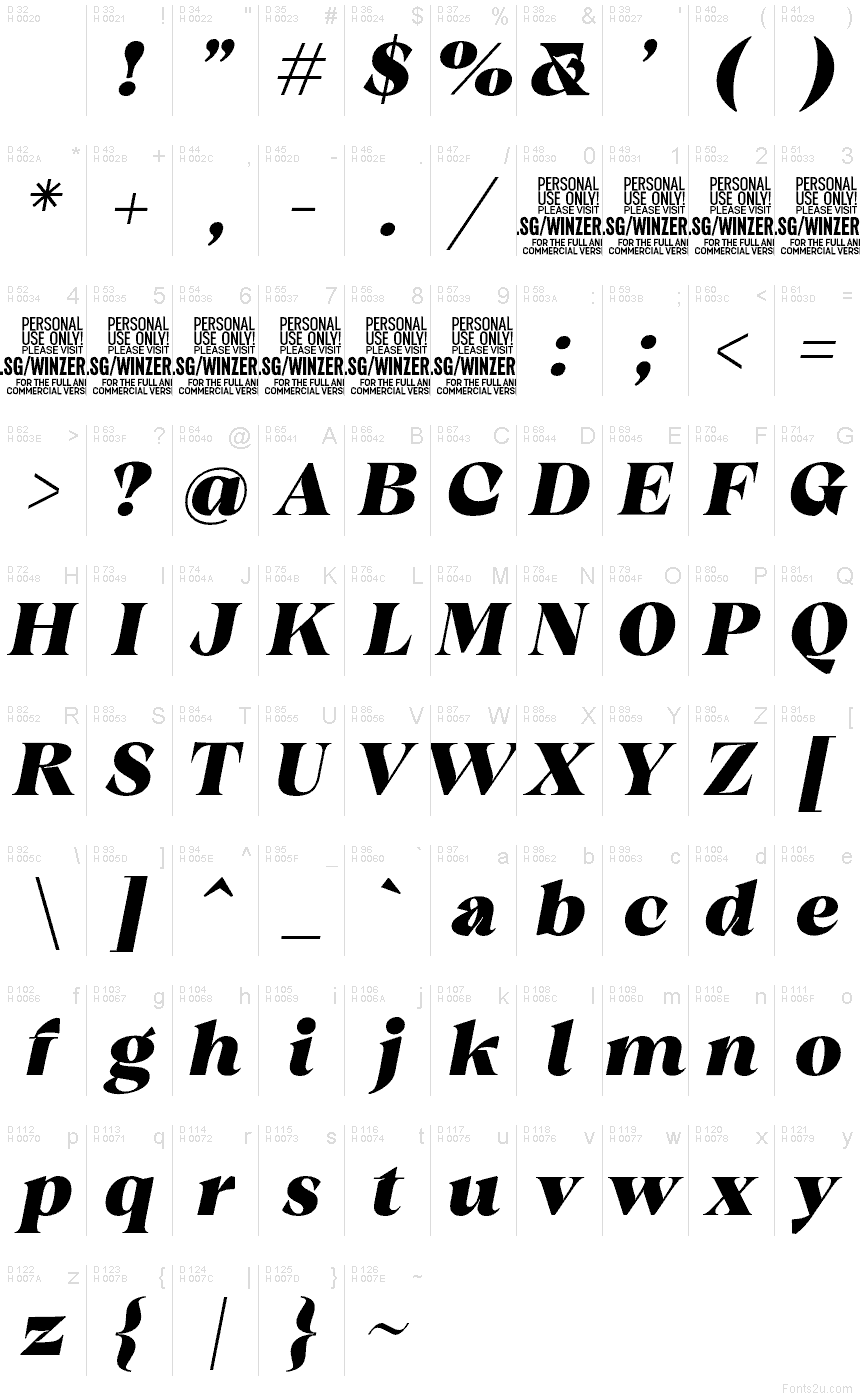
Winzer Serif PERSONAL USE Black Italic
Winzer Serif Black Italic font by Mans Greback is a free black serif font. Built within the Winzer Serif family, it hits that elusive sweet spot: high-contrast elegance with a decisive, forward slant. Thick, inky strokes and sharp wedge serifs give headlines a chiseled, luxurious presence, while the brisk italic angle adds motion and intent. When you need something that reads “refined” and “commanding” at once, this delivers.
Using Winzer Serif Black Italic, you can anchor wine labels, fashion lookbooks, editorial mastheads, luxury packaging, event posters, logos, and book covers with weight and swagger. The rhythm is dense yet controlled, so it holds up beautifully at display sizes—add a touch of tracking to let those heavy forms breathe. Pair this free font with a clean geometric sans for supporting copy to keep the spotlight on its bold, slanted voice.